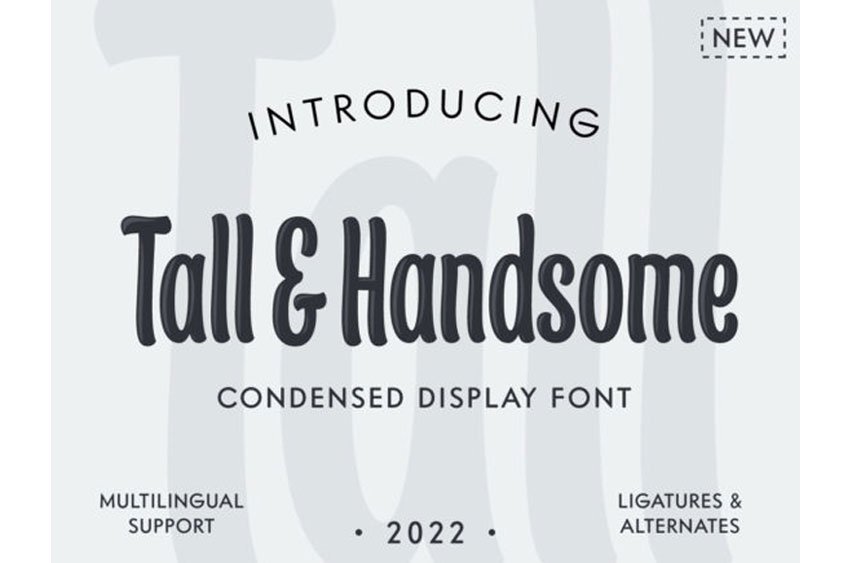
Tall & Handsome Font is a stylish and condensed display font. The organic narrow-shaped letters make this font perfect for those troubling long words and large volume sentences.
It’s created to achieve a casual relaxed vibe for every project.